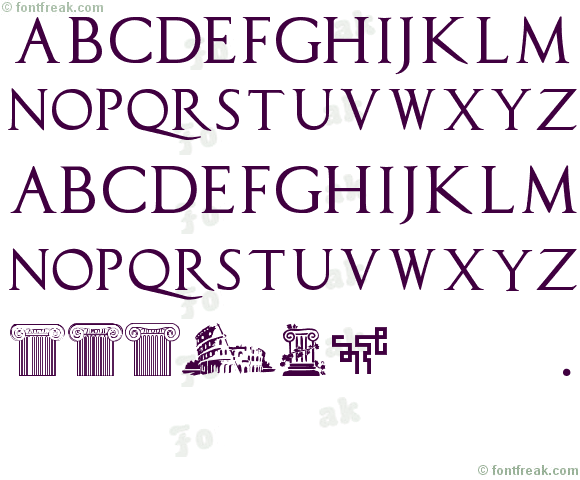
CapitalisTypOasisMedium
About CapitalisTypOasisMedium
CapitalisTypOasisMedium is a striking serif font designed by Manfred Klein, released under a freeware license. This font showcases a refined balance between classic and contemporary design elements, making it a versatile choice for various applications. The serif characteristics give it a touch of elegance, while the medium stroke weight provides a sense of stability and readability. The contrast between thick and thin lines is thoughtfully executed, enhancing the overall visual appeal without overwhelming the viewer. The generous spacing between the letters contributes to its legibility, making it suitable for both digital and print formats.
This font shines in specific use cases, such as wedding invitations, where its elegant serifs add a touch of sophistication. It's also perfect for movie posters, lending a classic feel that draws attention. Additionally, restaurant menus can benefit from its readability and stylish flair, making the dining experience more inviting. Small business owners looking to create a distinctive brand identity will find this font particularly useful for logos and promotional materials, while content creators can utilize it to enhance the aesthetic of their blogs or websites.
The target audience for CapitalisTypOasisMedium includes graphic designers, small business owners, and content creators who seek a font that combines style with function. Its timeless design makes it an ideal choice for projects requiring a touch of class.
What sets CapitalisTypOasisMedium apart is its unique blend of elegance and approachability. It captures attention without being overly ornate, making it a dependable choice for a range of design needs. For anyone looking to elevate their projects, the CapitalisTypOasisMedium font free download offers an excellent opportunity to incorporate a stylish and effective typographic solution.